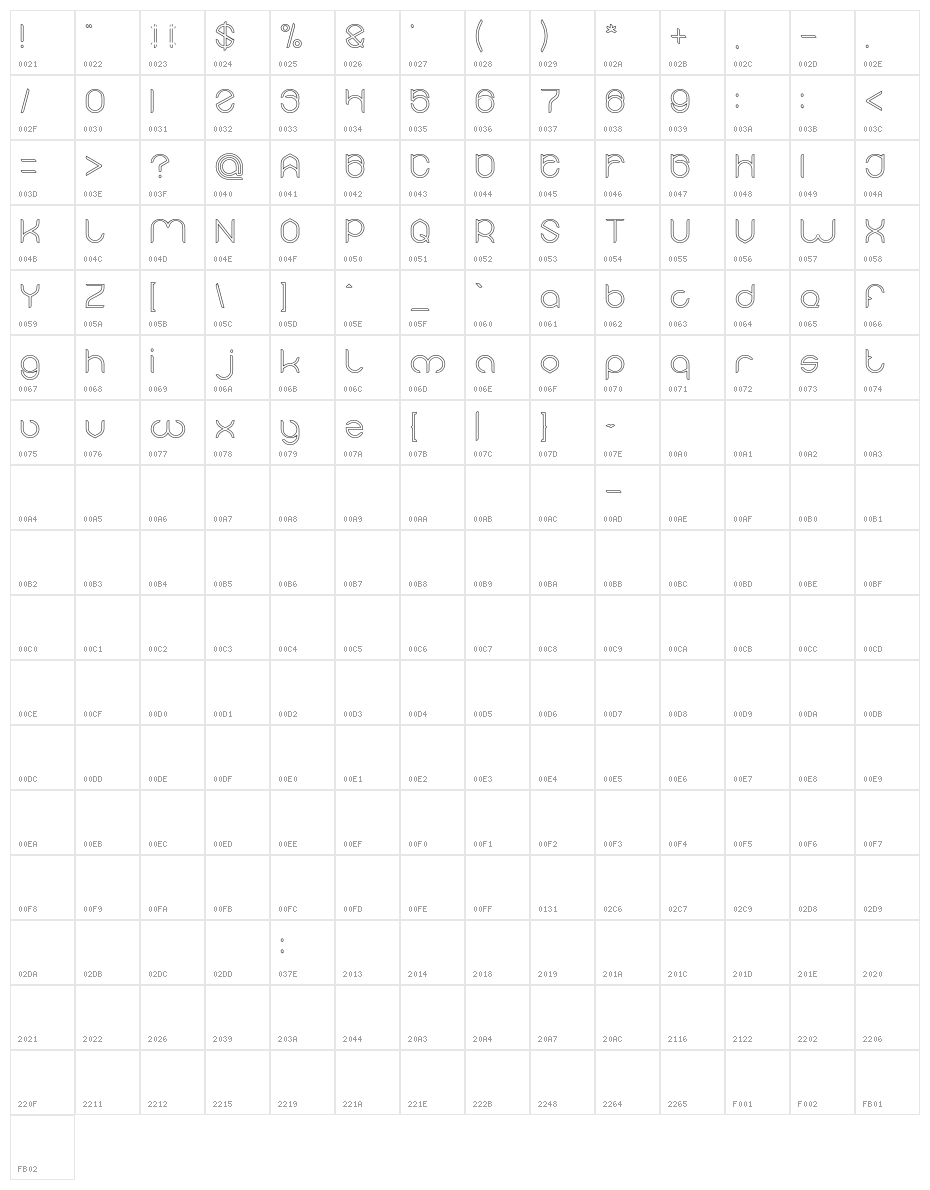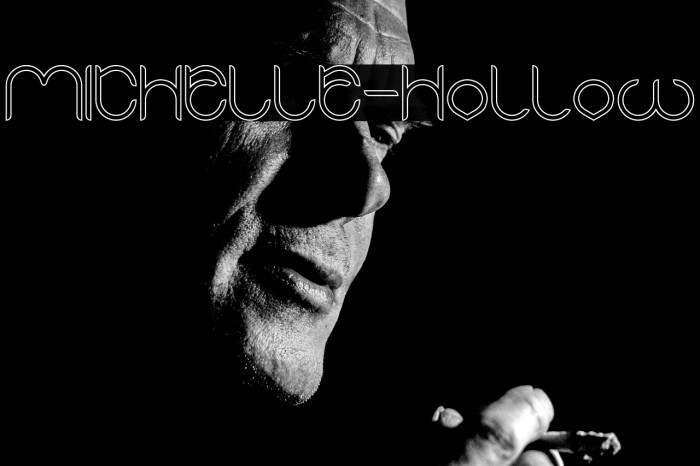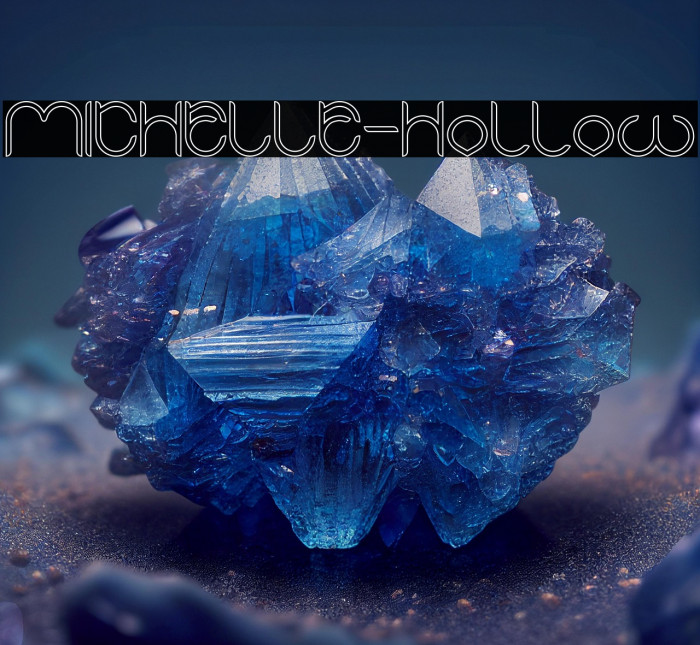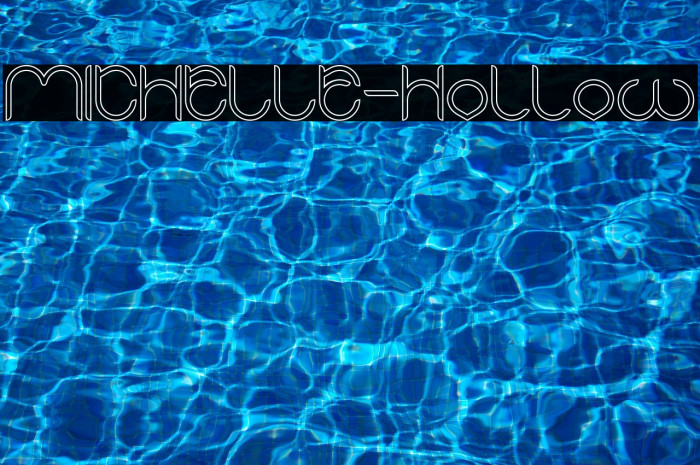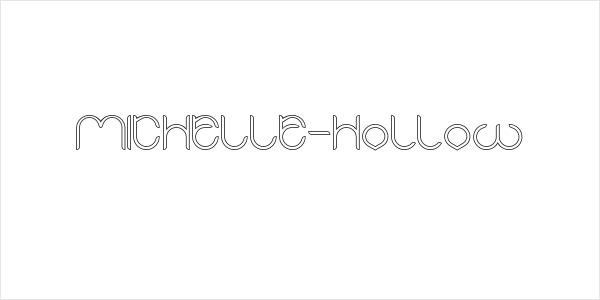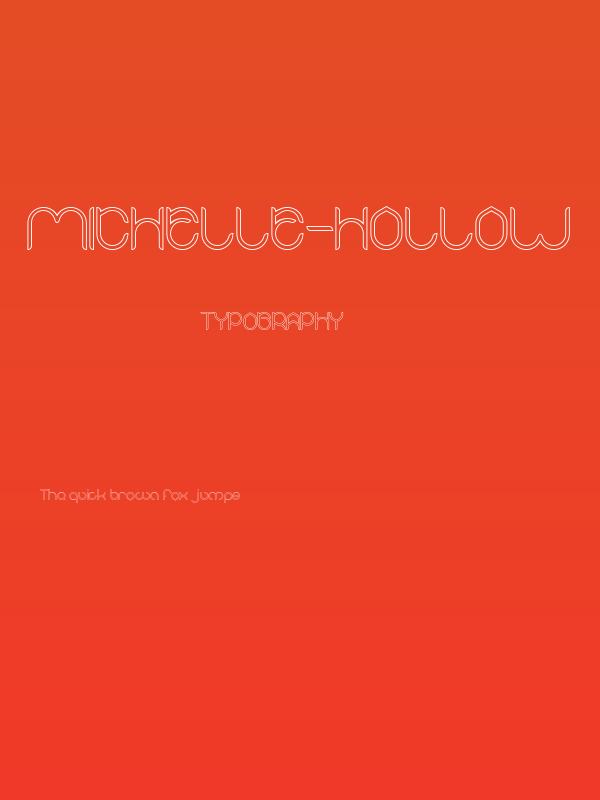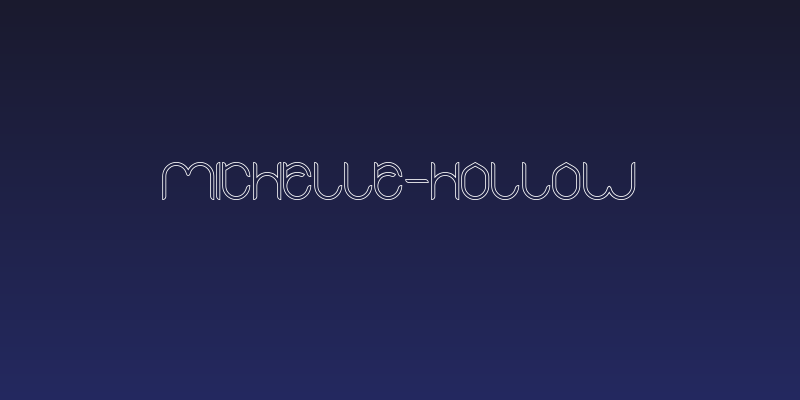
MICHELLE-Hollow Font
MICHELLE-Hollow Description
This font features a unique hollow design with a modern and futuristic aesthetic. The characters are outlined with a consistent stroke width, creating a clean and airy appearance. The uppercase and lowercase letters maintain a uniform style, with rounded edges and geometric shapes that give the font a cohesive look. Numbers and special characters follow the same design principles, ensuring versatility across different uses. The hollow nature of the font makes it ideal for overlaying on images or backgrounds where the text needs to stand out without being too bold or overpowering.
| Proposed Projects | Ideal for branding, posters, digital media, and creative projects where a modern and airy look is desired. |